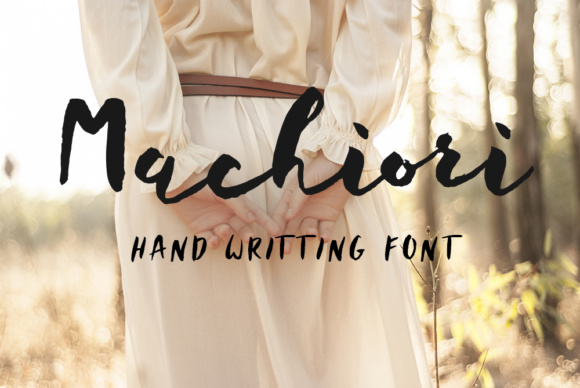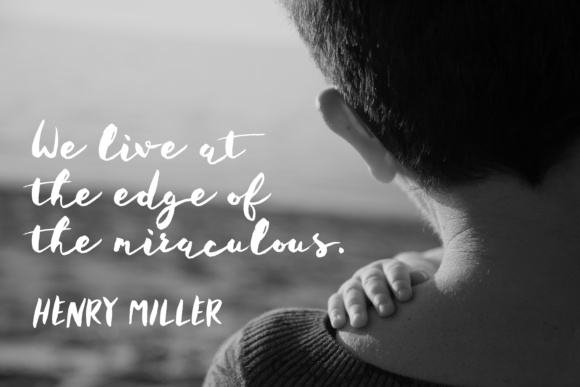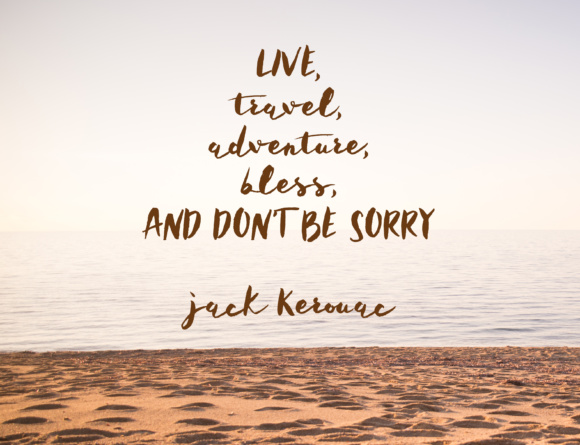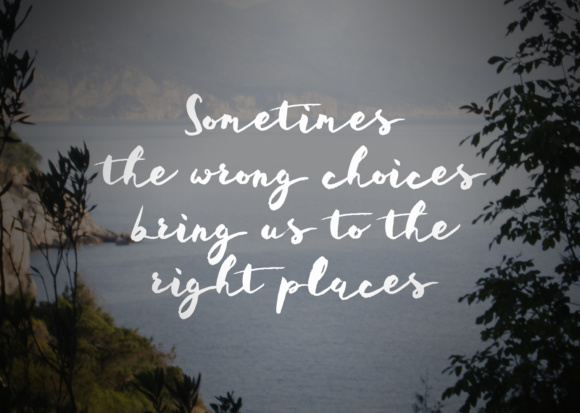
Machiori Font
About Machiori Font
Machiori is a beautiful and easy-going handwritten font, perfect for use in a wide range of friendly and fashionable projects. This bouncy cursive font is girly and bold, and can add tons of style in projects that need it most.